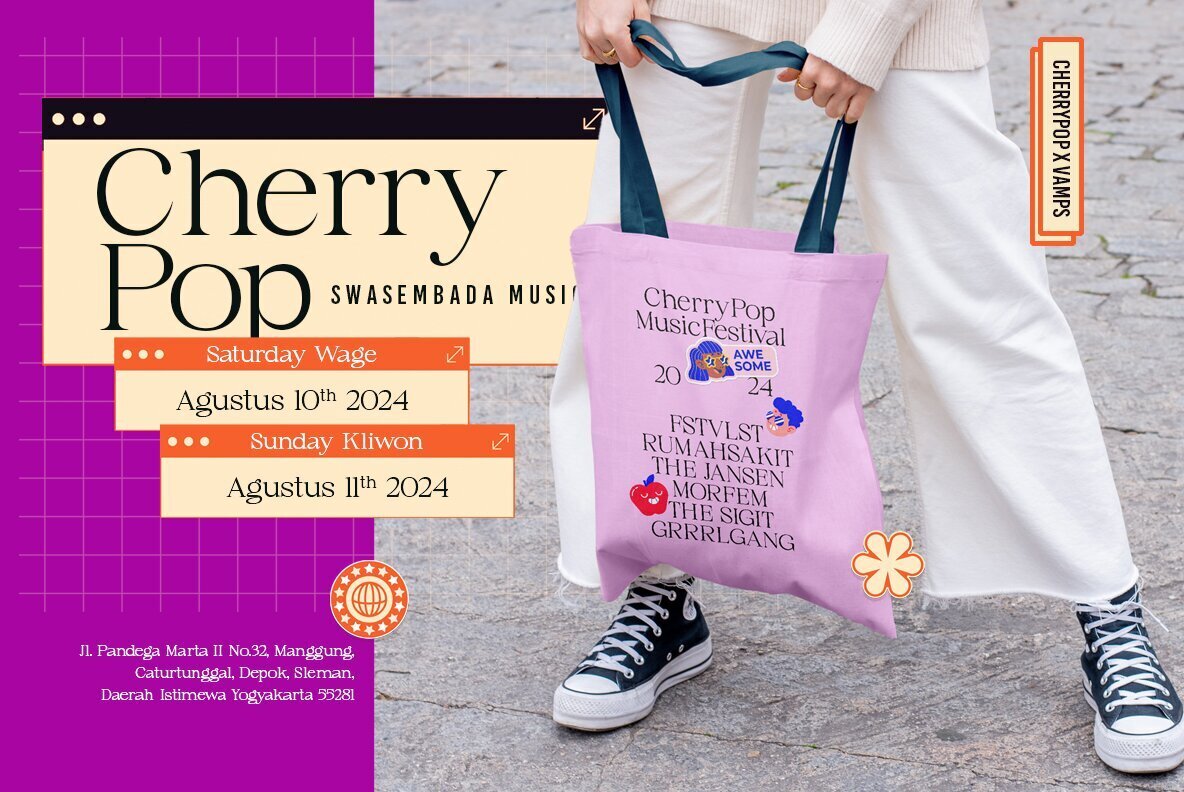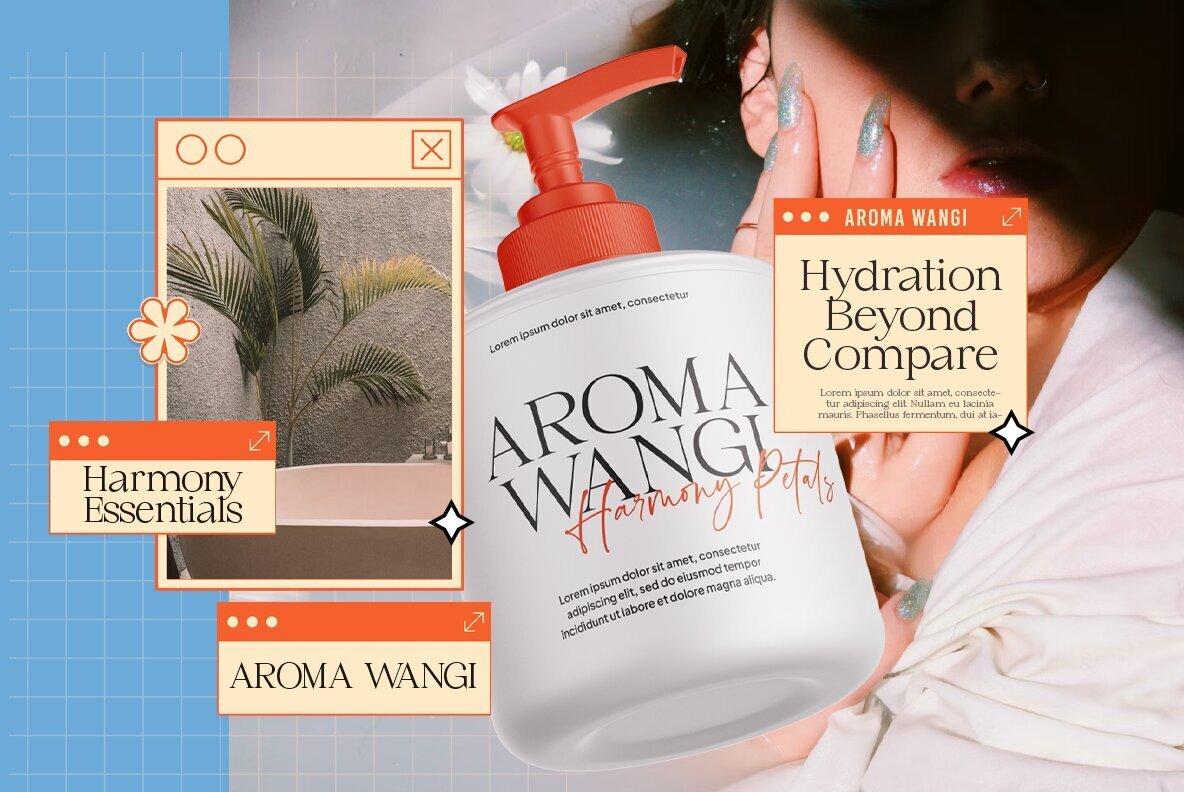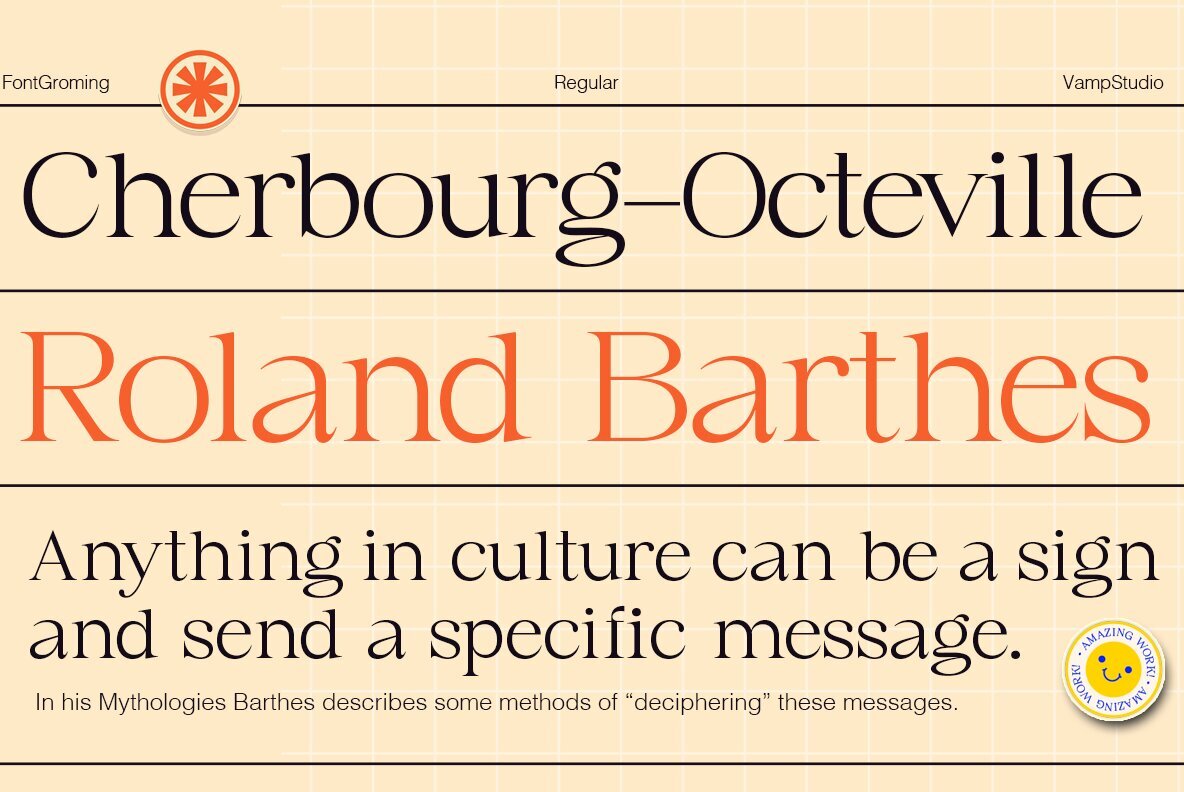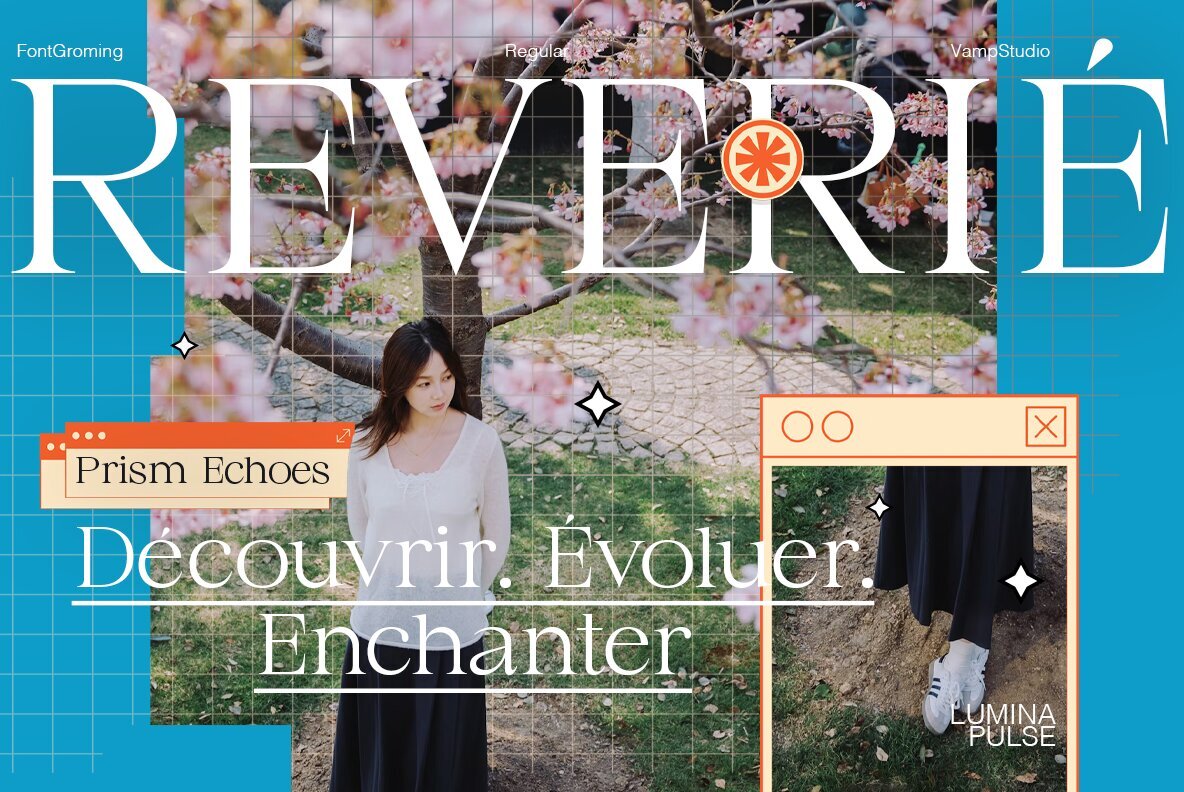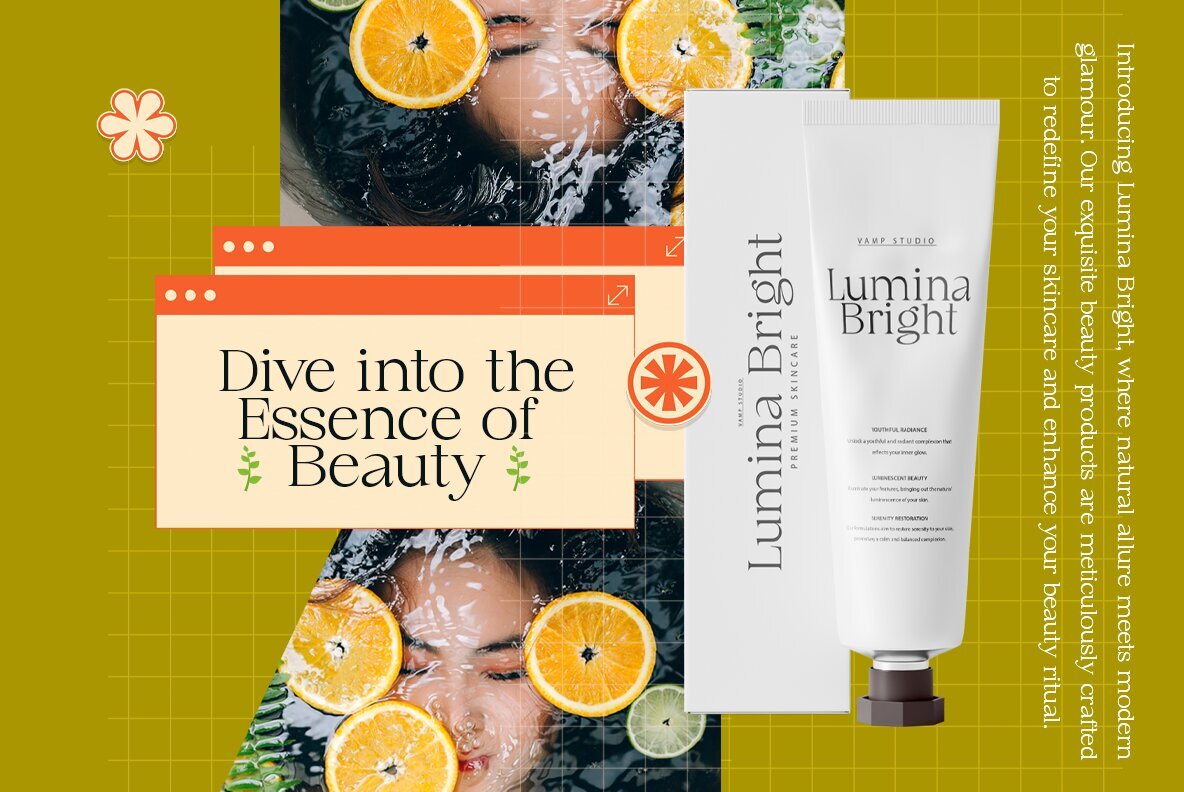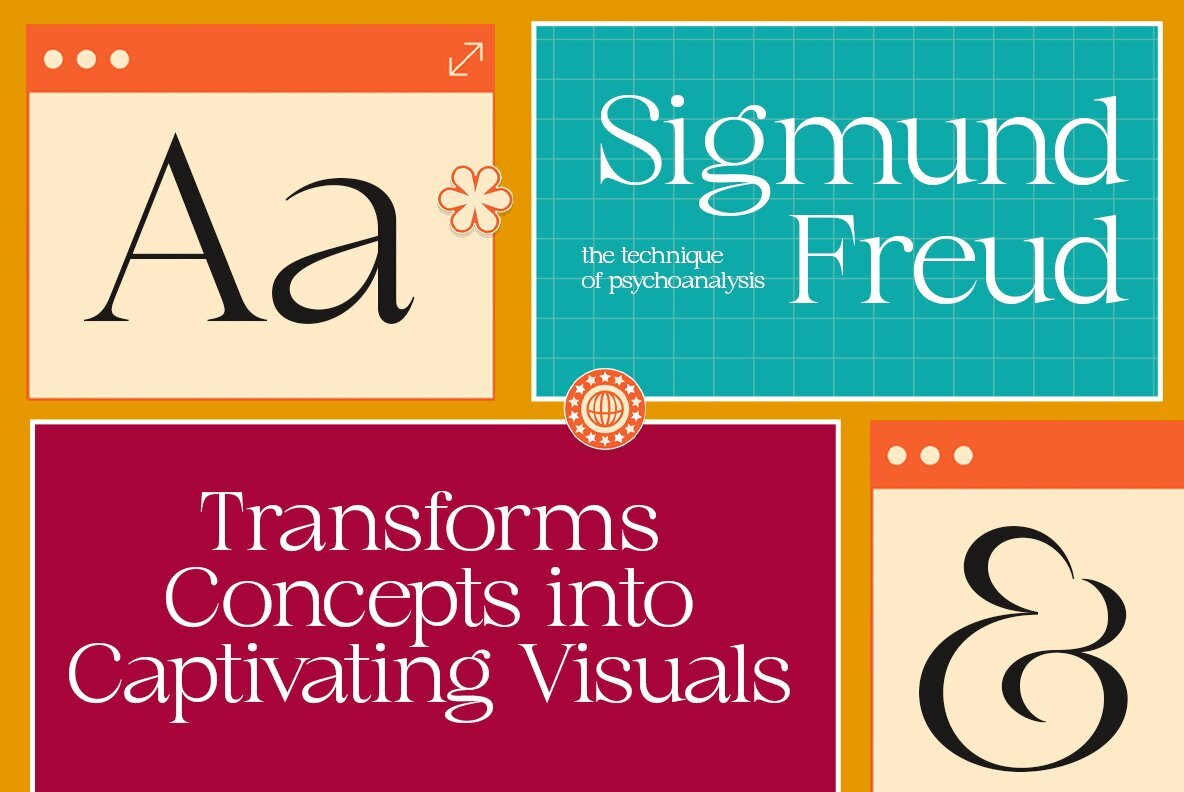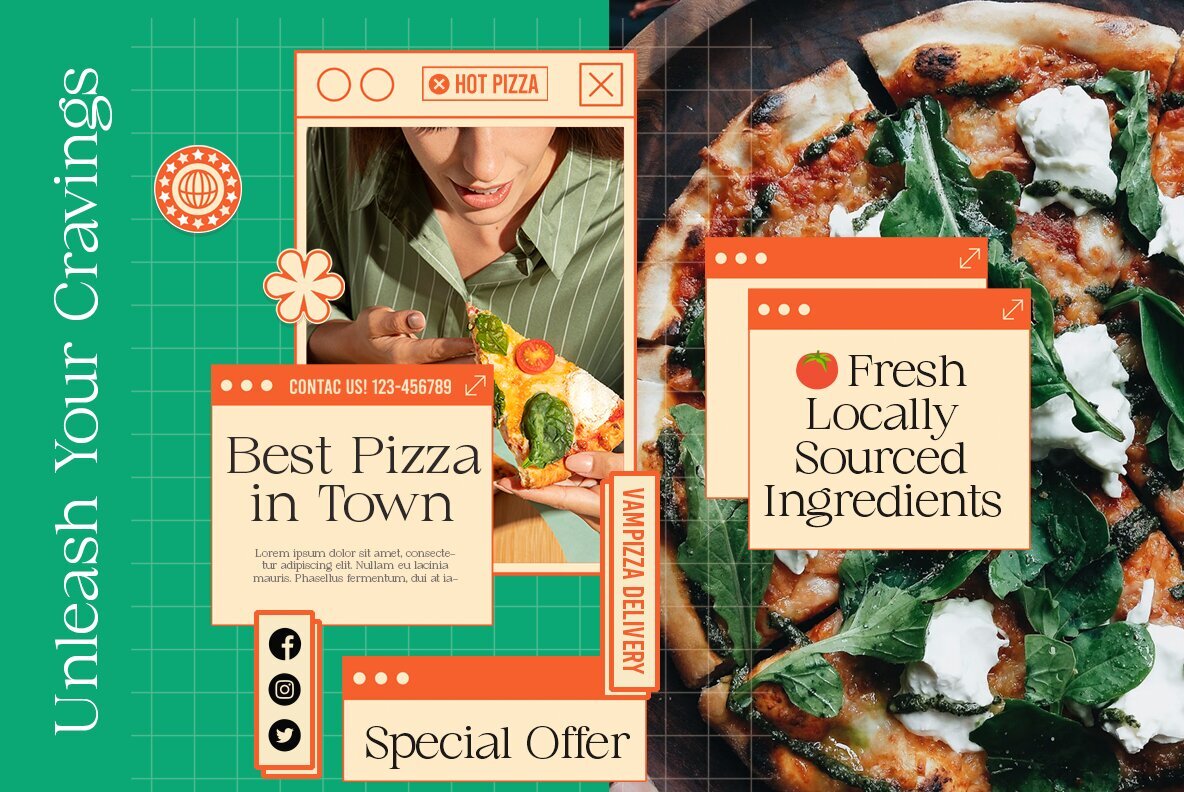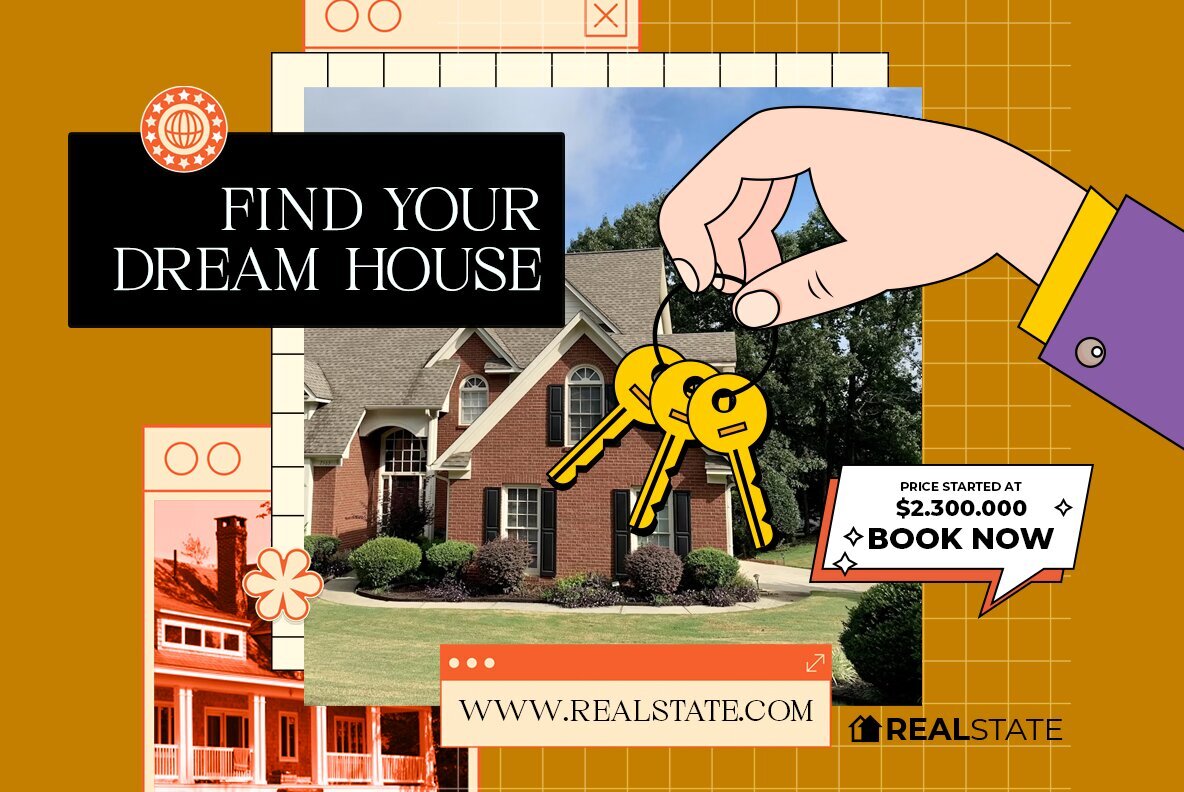
Groming Font
Groming Regular
Groming is a modern elegant serif typeface. This font looks very simple, clean, and elegant. Specially designed by skilled hands makes this font is the perfect fit for all your big projects. Groming is perfect for branding projects, logo, wedding designs, social media posts, advertisements, product packaging, product designs, label, photography, watermark, invitation, stationery and any projects that need Elegant and stylish taste.